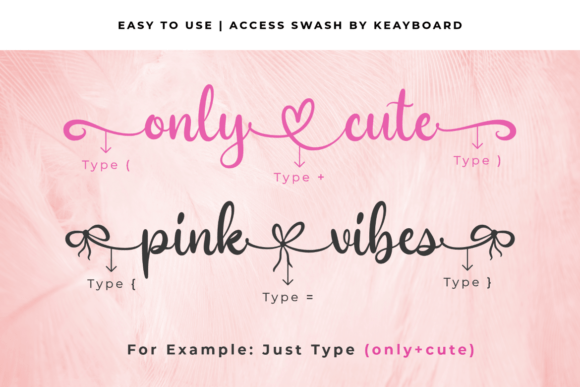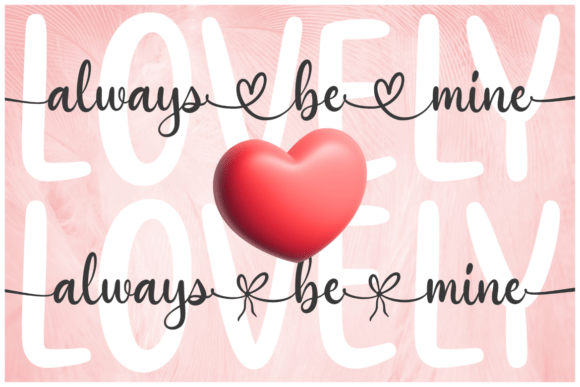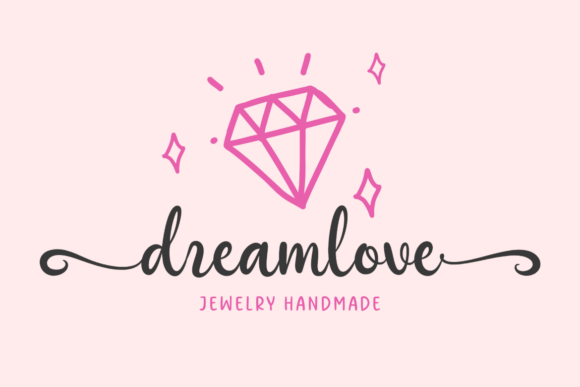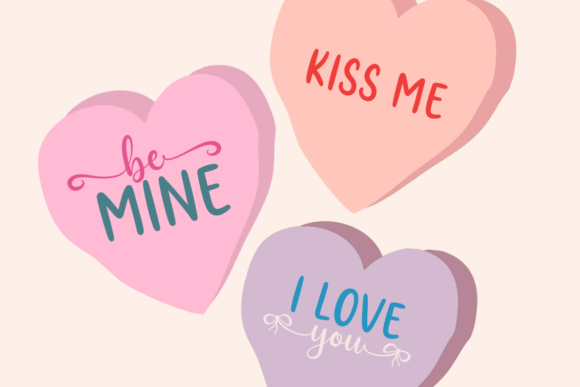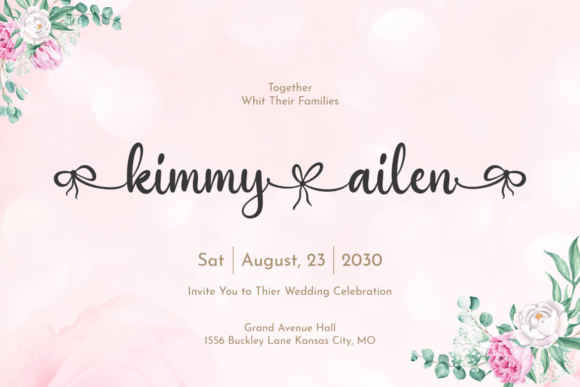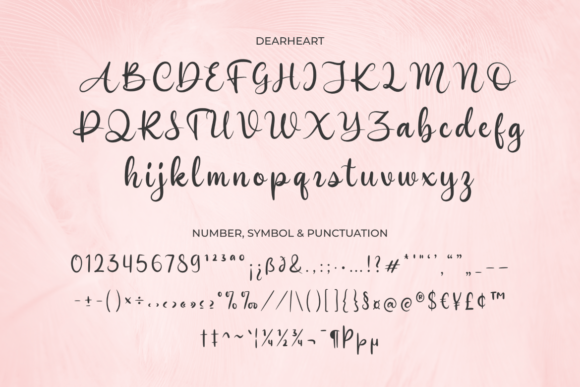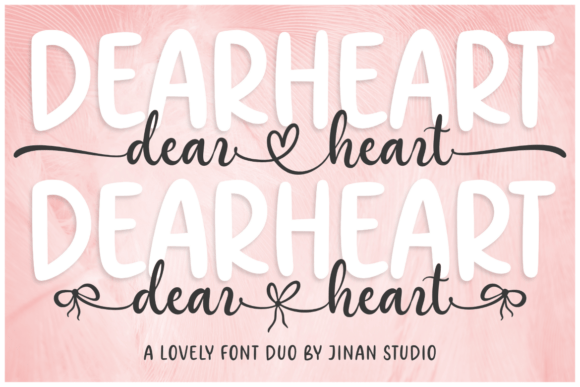
Introducing Dearheart Font: A Charming Duo for Creative Designs
Are you looking for a font that can add a touch of warmth and personality to your designs? Look no further than Dearheart Font, a delightful duo that combines a bold handwritten display font with a sweet, flowing script. This charming pair is perfect for a wide range of creative projects, from invitations and branding to quotes, greeting cards, stickers, and more.
A Perfect Pair: Bold and Sweet Fonts
Dearheart Font is a carefully crafted duo that brings together two unique fonts that complement each other beautifully. The bold handwritten display font is perfect for making a statement, while the sweet, flowing script adds a touch of elegance and sophistication. Whether you want to create a bold and eye-catching design or a soft and romantic one, Dearheart Font has got you covered.
One of the best things about Dearheart Font is its versatility. You can use the fonts together or separately, depending on your design needs. The bold display font is perfect for headings, titles, and emphasis, while the script font is ideal for body text, quotes, and captions. You can also mix and match the two fonts to create a unique and eye-catching design.
Handmade Feel with Smooth Curves and Playful Accents
Dearheart Font is designed to bring a lovely handmade feel to your designs. The fonts feature smooth curves, playful accents, and heart-themed swashes that add a touch of whimsy and charm. The result is a design that looks like it was created with love and care, perfect for projects that require a personal touch.
PUA-Encoded for Easy Access
Dearheart Font is PUA-encoded, which means that you can access all glyphs, swashes, and alternate characters with ease. This makes it easy to customize your designs and add your own personal touch. Whether you’re a designer or a crafter, you’ll appreciate the flexibility and creative freedom that Dearheart Font offers.
Dearheart Font is perfect for designers and crafters who want to add a touch of personality to their work. Whether you’re creating invitations, branding materials, or handmade crafts, this font duo is sure to inspire your creativity. With its charming and whimsical design, Dearheart Font is ideal for projects that require a personal touch.
Use Dearheart Font for:
- Invitations: weddings, birthday parties, baby showers, and more
- Branding: logos, packaging, and marketing materials
- Quotes: inspirational quotes, motivational quotes, and social media posts
- Greeting cards: birthdays, holidays, and special occasions
- Stickers: labels, decals, and other craft projects
- Handmade crafts: journals, planners, and DIY projects
Get Creative with Dearheart Font
Dearheart Font is a versatile and charming font duo that’s perfect for designers and crafters. With its smooth curves, playful accents, and heart-themed swashes, this font is sure to add a touch of warmth and personality to your designs. So why wait? Get creative with Dearheart Font today and see what amazing projects you can create!
- Font duo: bold handwritten display font and sweet, flowing script
- PUA-encoded for easy access to glyphs, swashes, and alternate characters
- Smooth curves and playful accents for a handmade feel
- Heart-themed swashes for added charm
- Perfect for invitations, branding, quotes, greeting cards, stickers, and more
In conclusion, Dearheart Font is a must-have for designers and crafters who want to add a touch of personality to their work. With its charming and whimsical design, this font duo is sure to inspire your creativity and help you create amazing projects. So don’t wait – get your hands on Dearheart Font today and start creating!